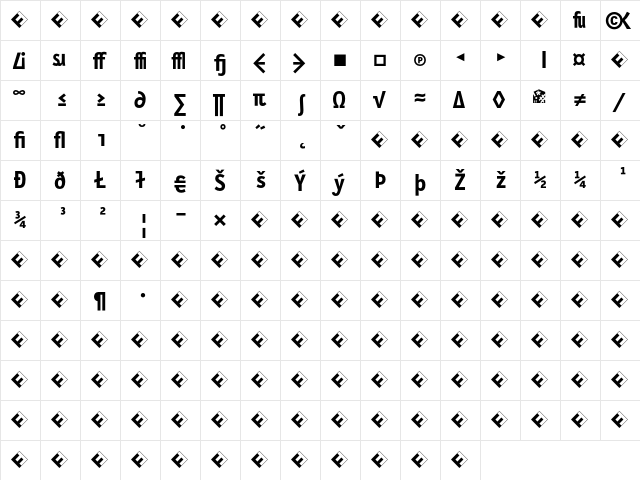
LetterGothicSlang BoldExpert
Design Context for LetterGothicSlang Typeface
LetterGothicSlang takes a clean, functional approach — its unadorned letterforms prioritise legibility and work reliably across screen and print environments. Its bold stroke weight gives it real presence on the page.
A strong choice for UI design, app interfaces, bold signage, and corporate brand systems.
Font Pairing: Use LetterGothicSlang for headlines alongside a lighter-weight sans or serif for body copy to establish clear visual hierarchy.
Pro Tip: Pair LetterGothicSlang with a display or serif font for headlines — its neutral character makes it an excellent supporting player in complex typographic systems.